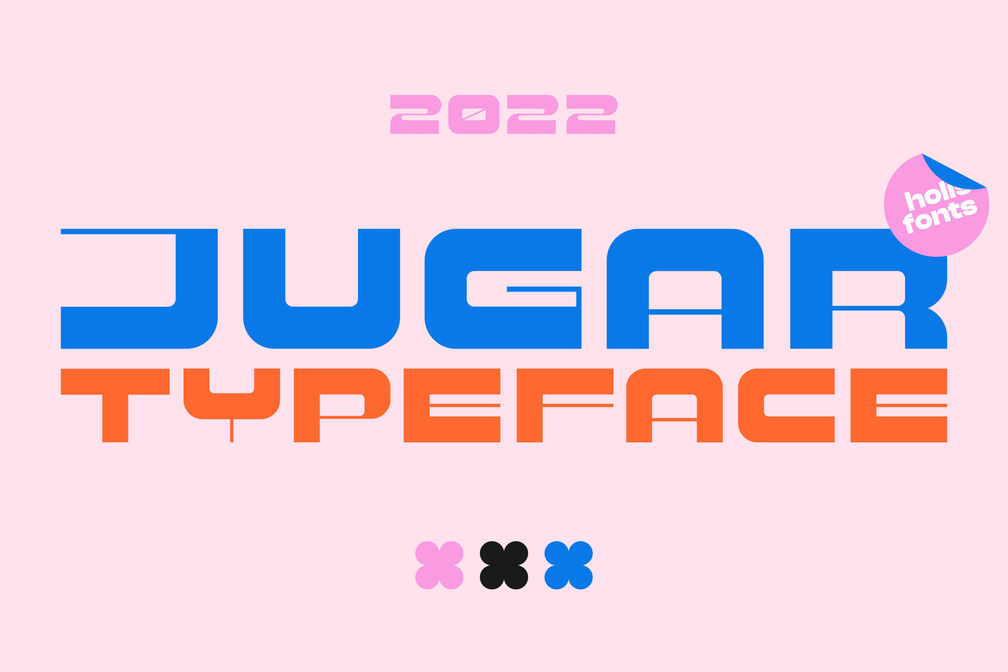
Jugar Display Typeface
A modern display typeface “Jugar” good for poster design, social media branding, logo design, logo type, etc.
• All Uppercase
• Ligatures
• Numeral
• Punctuation and Symbol
• Multilingual Support